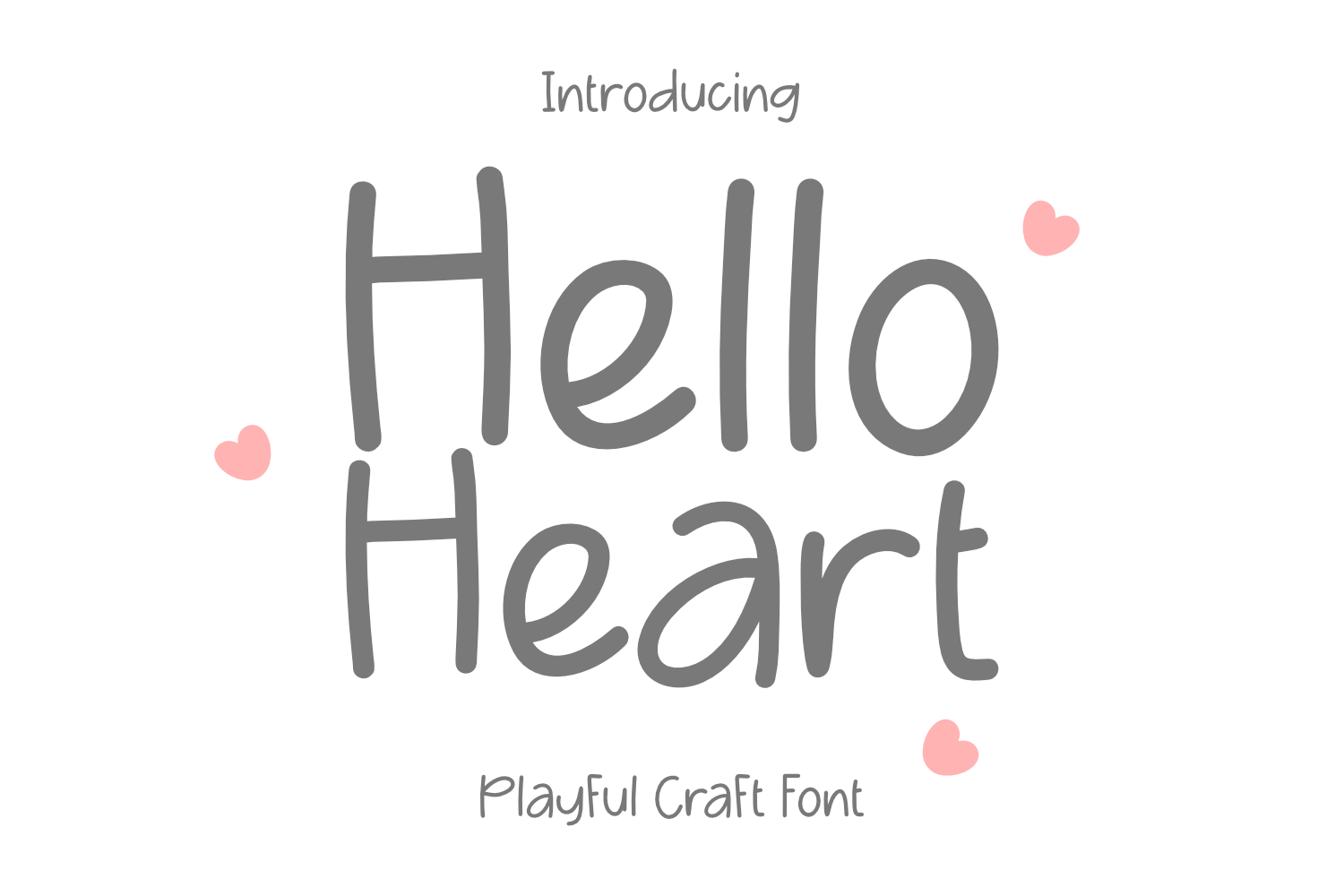
Hello Heart Playful Craft Font
Hello heart
Hello Heart is a delightfully fun and playful display font, crafted with love for makers, creators, and crafters. Its soft curves and whimsical bounce make it feel like a warm hug in text form. Whether you are weeding vinyl, cutting paper, or designing a bright new brand, this font adds that perfect homemade, cheerful touch.
Hello Heart Playful Craft Font